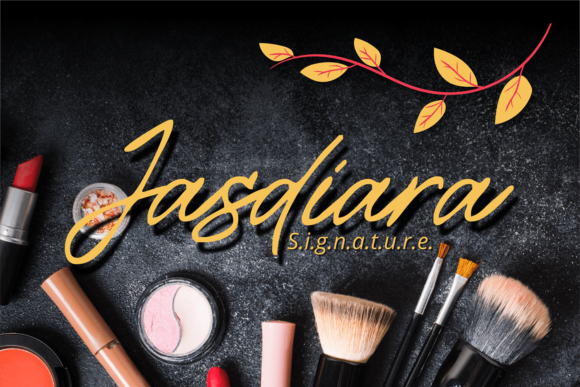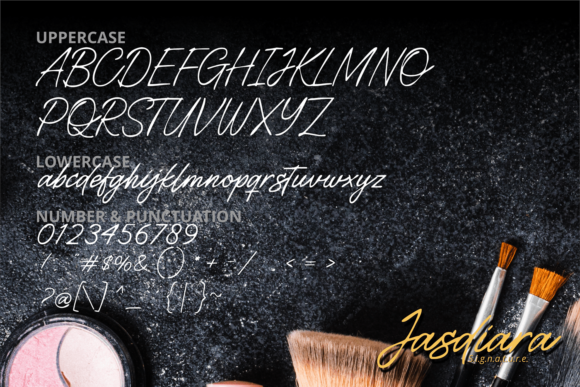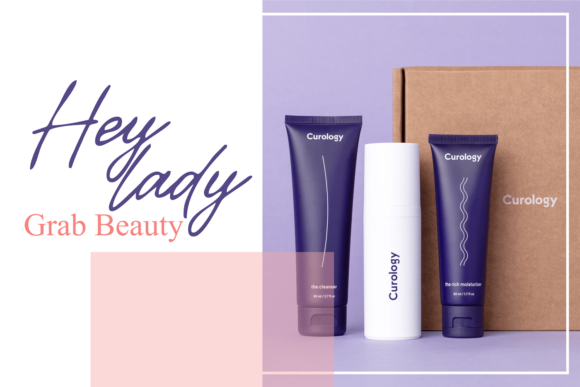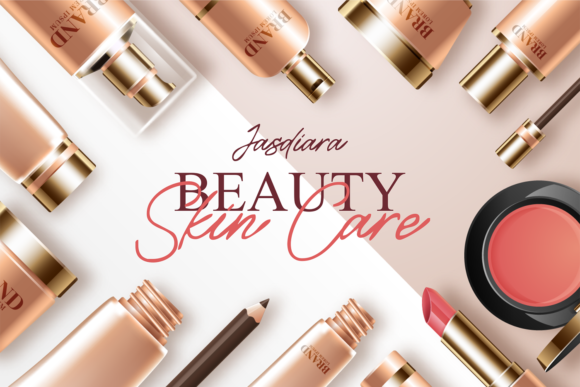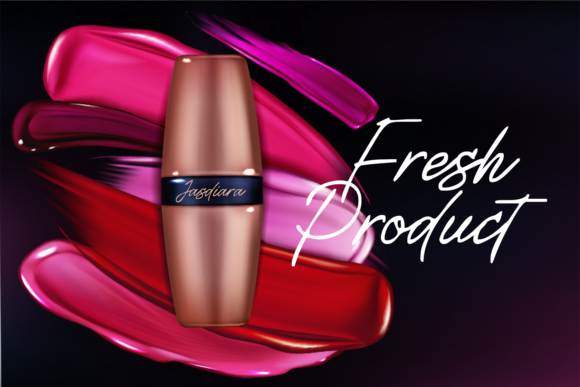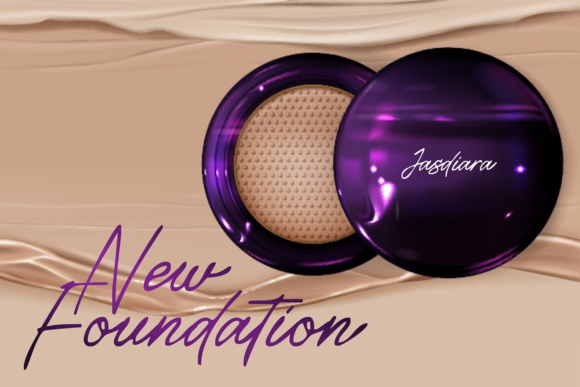
Jasdiara Font
About Jasdiara Font
Jasdiara is a signature font with a delicate touch. Use it for any project design that requires a personalized appearance!